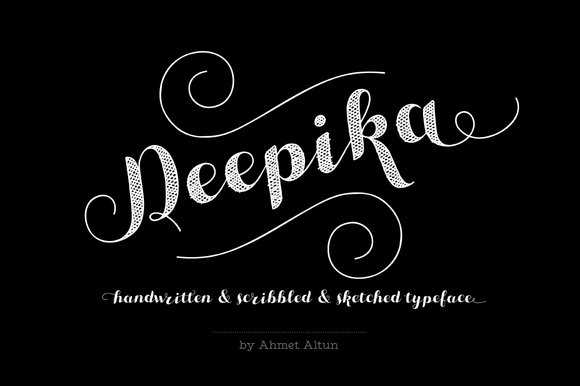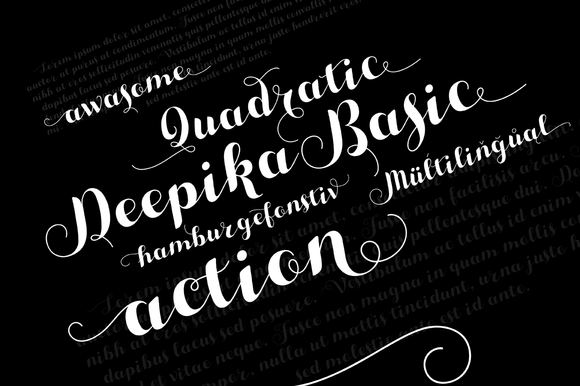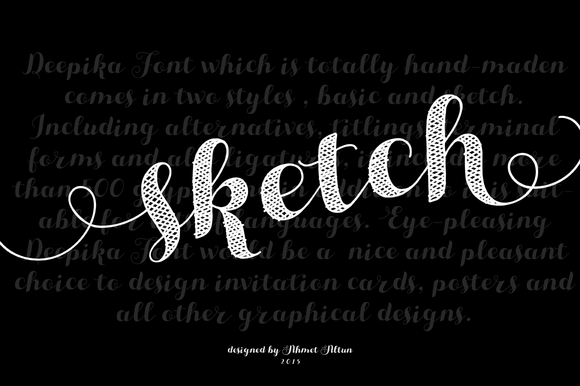
Deepika Typeface
Deepika Font which is totally hand-maden comes in two styles; basic and sketch. Including alternatives, titlings, terminal forms and also ligatures, it includes more than 500 glyphs and in addition to it is suitable for lots of languages. Eye-pleasing Deepika Font would be a nice and pleasant choice to design invitation cards, posters and all other graphical designs.